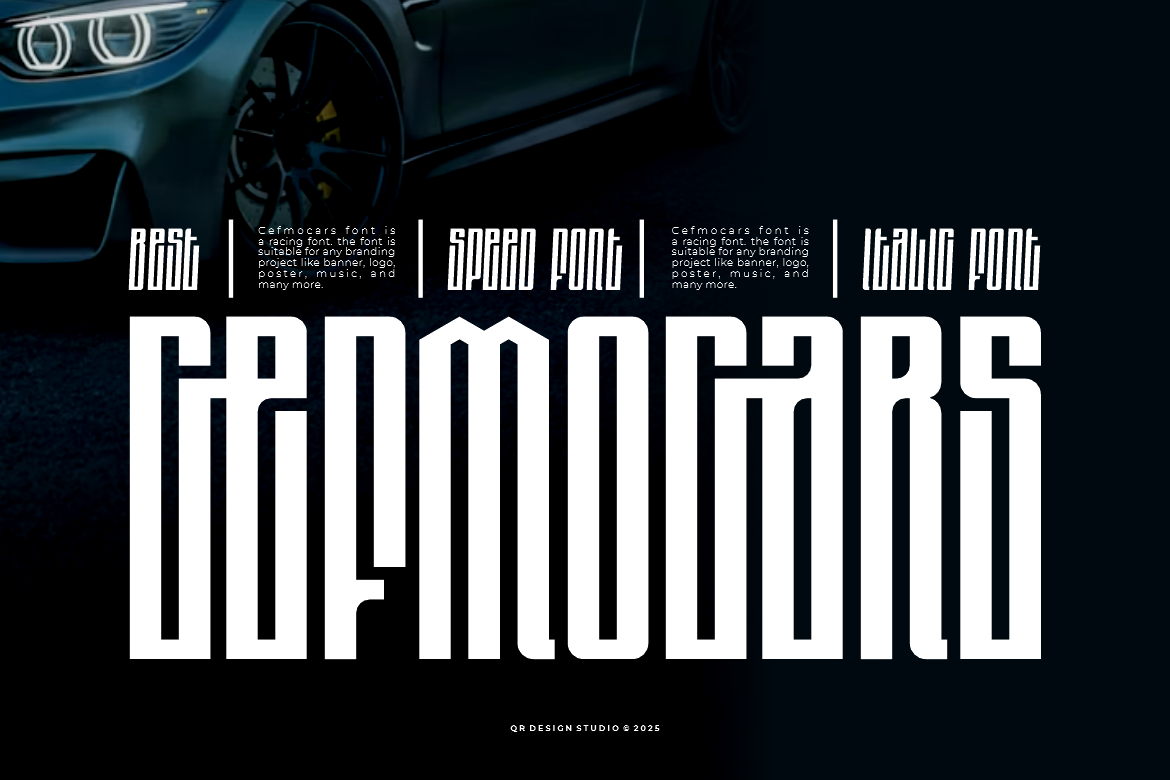
Cefmocars - Racing Font
Cefmocars Font is a racing and authentic display font. The font is suitable for any branding project like poster, logo, sport, and many more. Outstanding in a wide range of contexts.